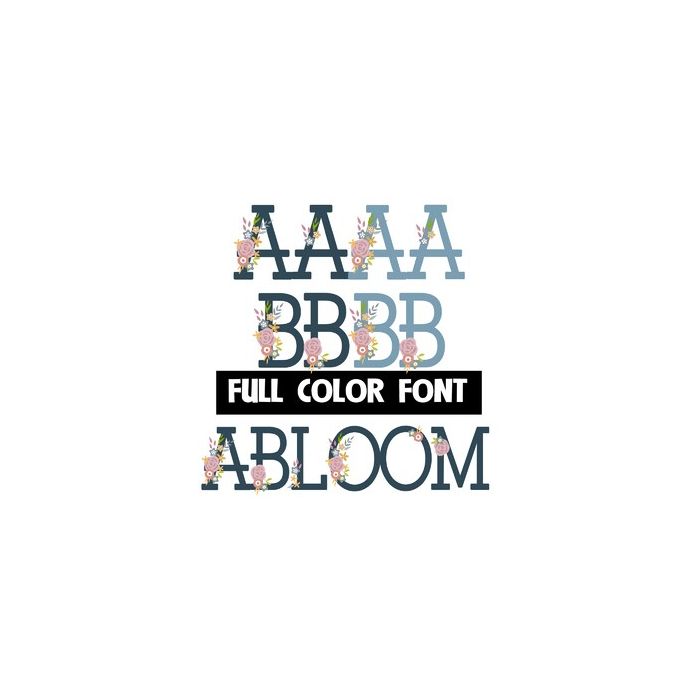
This full-color font features a slab serif with floral blooms everywhere. There is an alt version in a lighter blue that you can access through your system or Silhoeutte's glyph map.